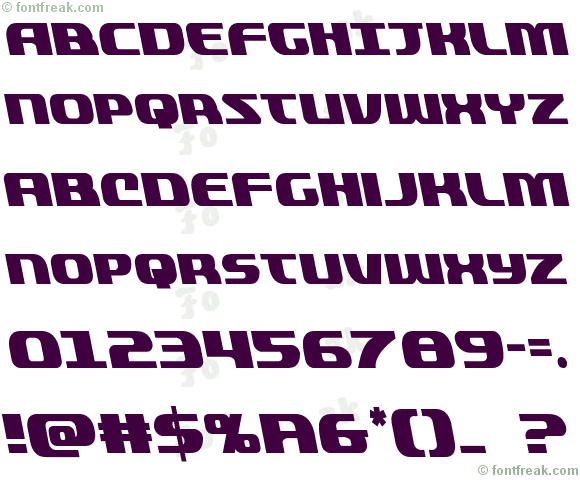
Quickening Condensed Leftalic
About Quickening Condensed Leftalic
Quickening Condensed Leftalic, crafted by Daniel Zadorozny, is a striking display font that falls into the category of condensed and italic typefaces. This font is characterized by its unique leftward slant, giving it a dynamic and energetic appearance. The stroke weight is consistent, providing a clean and modern look, while the contrast is minimal, making it easy to read in various contexts. Its condensed design allows for effective use of space without sacrificing legibility, making it an excellent choice for bold statements.
The visual characteristics of Quickening Condensed Leftalic include sharp angles and a geometric style, creating a sense of movement and urgency. The spacing is tight yet balanced, ensuring that letters flow smoothly together, ideal for impactful headlines or promotional materials. This font also features subtle decorative elements that enhance its appeal without overwhelming the design, making it versatile for a range of applications.
Best suited for eye-catching uses, Quickening Condensed Leftalic is perfect for movie posters, event flyers, and branding materials, as well as restaurant menus and product packaging. Its bold design captures attention, making it a favorite among graphic designers and content creators looking to make a memorable impression.
What truly sets Quickening Condensed Leftalic apart is its ability to blend modern aesthetics with functional design. Its unique leftward tilt and condensed form make it an exceptional choice for anyone looking to add a touch of creativity to their work while maintaining clarity and impact.